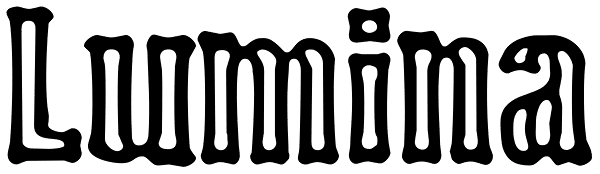
Lumina
Lumina combines a fluid, informal look with an upright, fairly formal character structure. The font is reminiscent of leaded or stained glass, suggesting a trying to-be-solid outline with flowing inner spaces. Characters are softened by the use of...
Lumina
Lumina Black